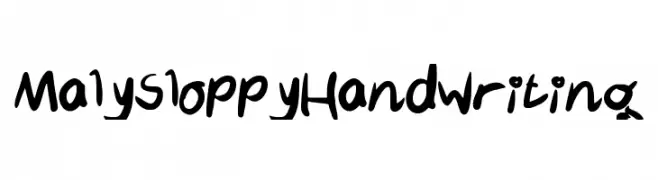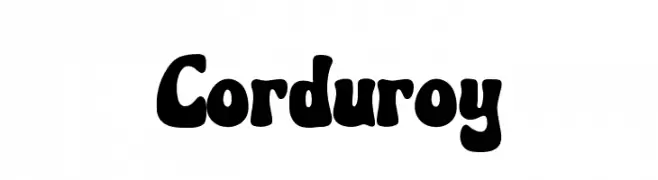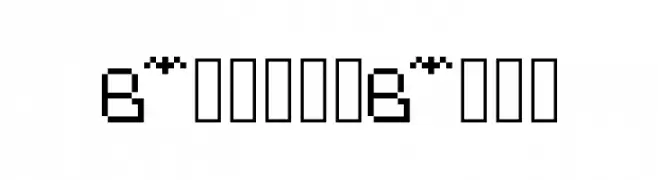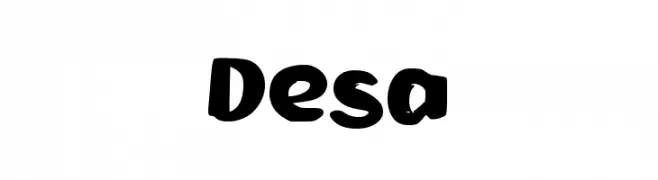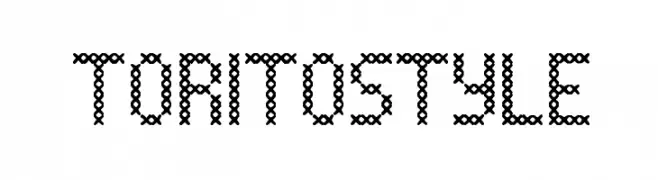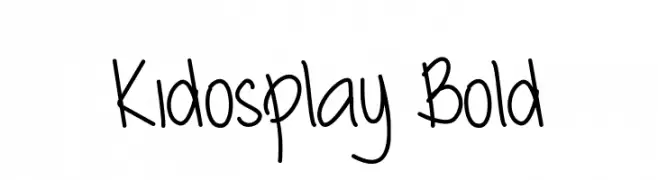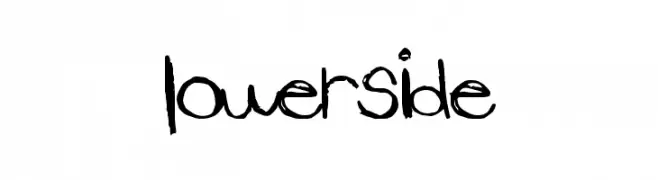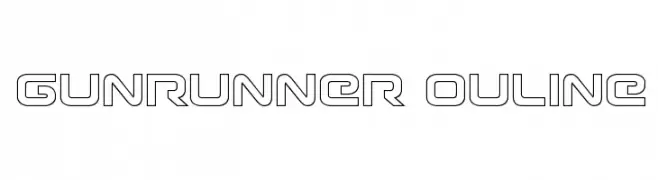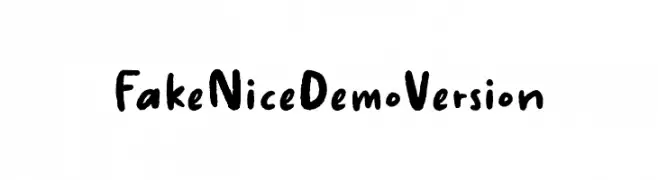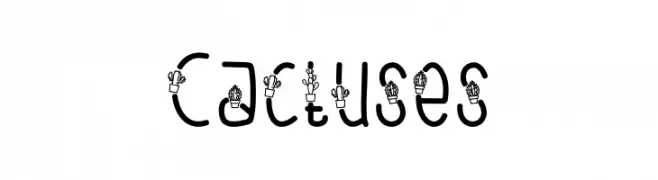
A bold, playful font with bubble-like design and circular accents.
A bold, playful font with rounded edges and a bubbly appearance.
A playful, hand-drawn font with bold outlines and a whimsical style.
A bold, playful font with rounded edges and a hand-drawn look.
A decorative font with a cross-stitch embroidery style.
A dynamic, italicized font with a futuristic halftone effect.
An elegant script font with flowing, cursive lines and sophisticated flourishes.
A playful, handwritten font with a casual and friendly style.
A decorative font with seahorse motifs integrated into each character.
A decorative set of culturally inspired symbols with intricate designs.
A rough, hand-drawn font with an artistic, graffiti-like style.
A casual, handwritten font with fluid, connected strokes and a lively appearance.
A bold, Gothic-inspired font with high contrast and intricate details.
A refined serif font with light weight and medium contrast, ideal for elegant designs.
A bold, expressive script font with fluid, connected letterforms.
A modern, italic font with a sleek, futuristic design and rounded edges.
A futuristic, geometric outline font with sharp angles and straight lines.
A playful and casual handwritten font with fluid, connected strokes.
A bold, angular font inspired by ancient runic alphabets with a rugged, hand-carved look.
A bold, dramatic font with unique inward curves, perfect for headlines.
A rounded, italic font with a friendly and modern appearance.
A playful, hand-drawn font with bold, rounded strokes and a casual vibe.
A playful, cactus-themed decorative font with bold, rounded characters.
A bold, italic font with high contrast and tight spacing, exuding energy and impact.